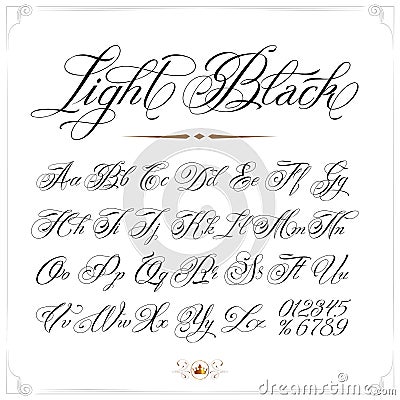
In a world where personal expression meets design precision, light tattoo font stands out as a subtle yet powerful choice. Its gentle, sketch-inspired strokes capture the essence of body art without bold lines, making it ideal for those seeking understated elegance.
Beyond tattoos, light tattoo font thrives in branding, social media graphics, and event design. Its minimalist aesthetic aligns with modern trends favoring clean, approachable visuals. Brands use it to build personal connections, while artists incorporate it in digital portfolios to showcase handcrafted style and modern simplicity.
Designing a light tattoo font demands attention to balance—thin strokes with just enough weight to ensure readability. Designers often blend organic curves with crisp edges, ensuring the typeface feels both hand-drawn and intentional. Customization allows for unique flourishes, making each piece feel one-of-a-kind while maintaining a cohesive, light-hearted vibe.
Light tattoo font is more than a typographic trend—it’s a celebration of delicate expression. Its soft lines and artisanal charm make it a timeless choice for those who value authenticity and elegance. Start designing with intention—let light tattoo font transform your visual storytelling today.